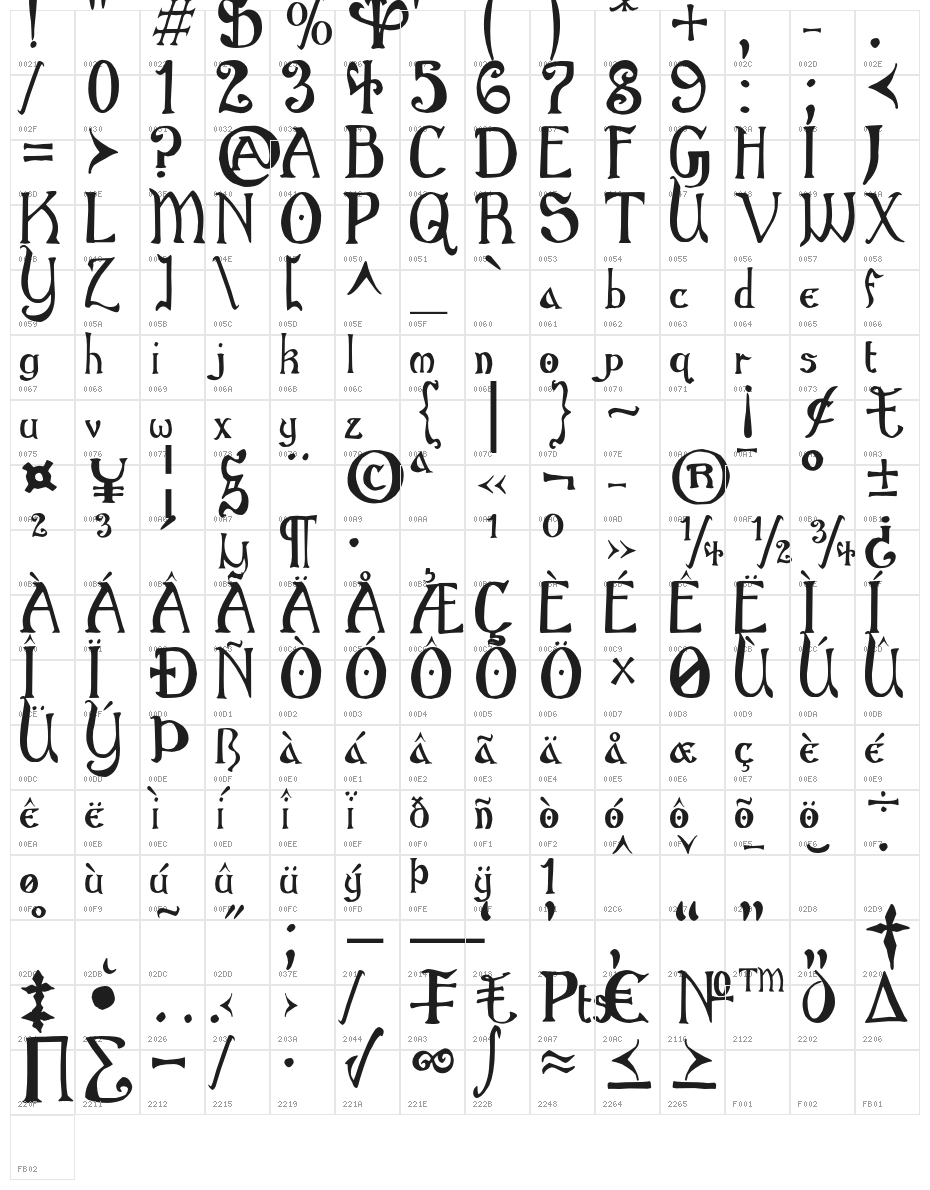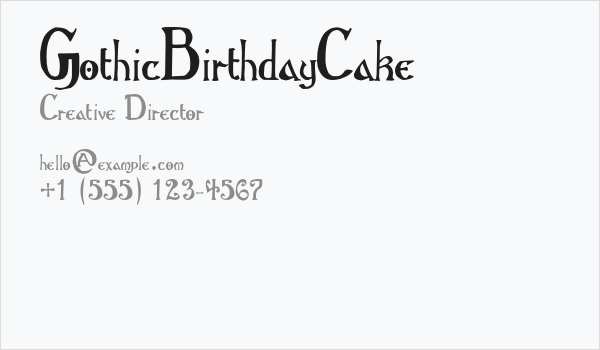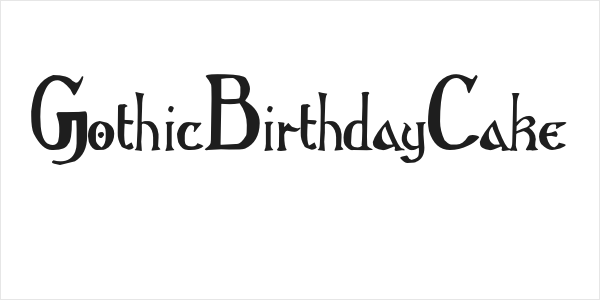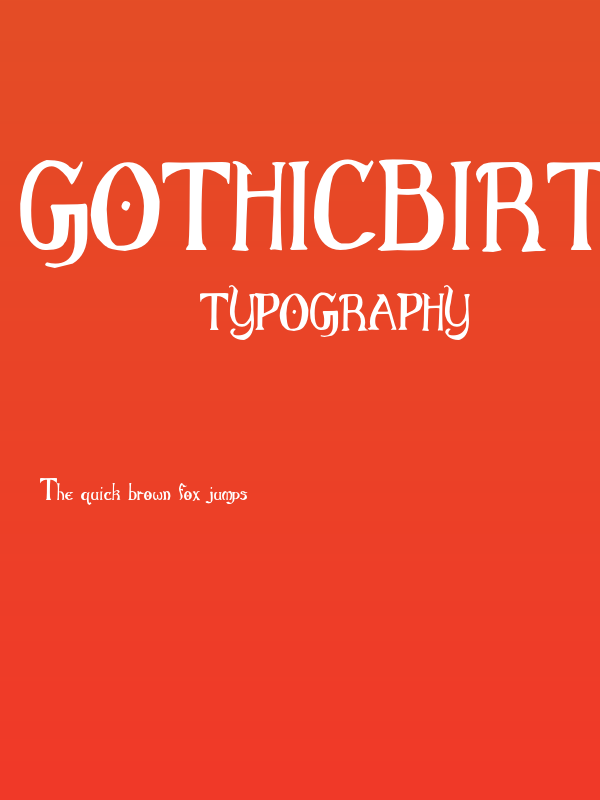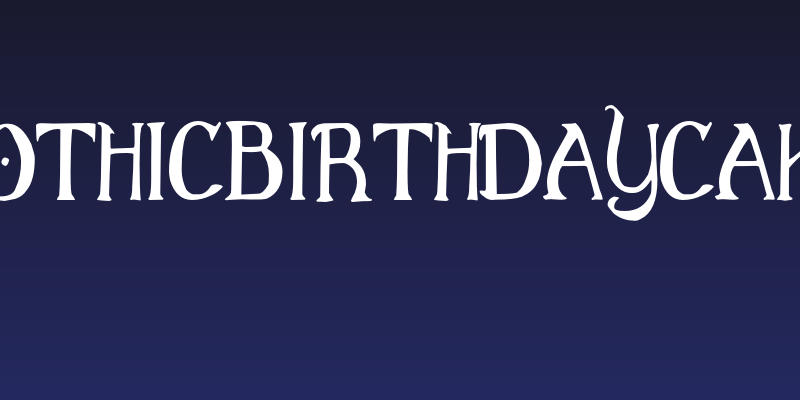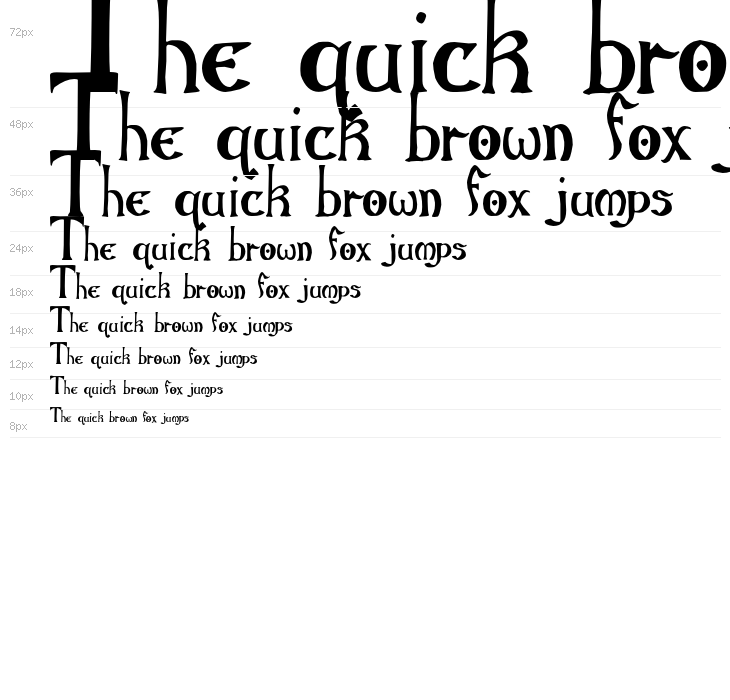
GothicBirthdayCake Font
GothicBirthdayCake Description
This font exhibits a unique blend of gothic and playful elements, characterized by its ornate and slightly whimsical letterforms. The uppercase letters are tall and narrow, with distinctively curved and pointed serifs that give a medieval feel. The lowercase letters maintain a consistent style, featuring rounded edges and occasional flourishes that add a touch of elegance. The numerals are bold and curvaceous, complementing the overall aesthetic. Special characters are creatively designed, maintaining the font's distinctive style. This font's intricate details and artistic flair make it stand out, suitable for projects that require a dramatic and eye-catching typeface.